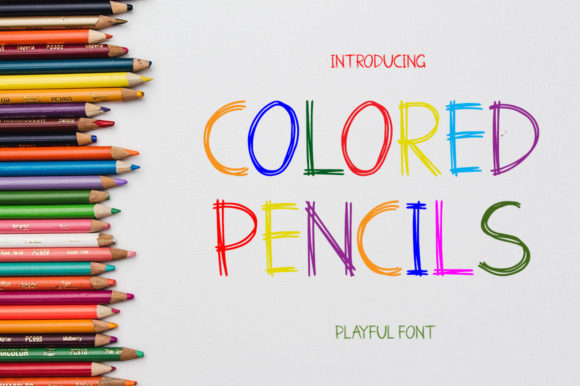
Introducing Colored Pencils Font, the ultimate choice for adding a burst of vibrant colors to your designs! Created by the talented PurMoon, this font is a must-have for anyone seeking the best font for poster text.
With its playful and eye-catching appearance, Colored Pencils Font is the perfect match for school-themed projects and beyond. Imagine the joy and excitement it will bring to your invitations, party decorations, educational materials, and more. Let your creativity run wild as you create captivating designs that truly stand out.
What sets Colored Pencils Font apart is its unique color font feature. As an Opentype-SVG font, it offers a level of visual richness and depth that traditional fonts simply can't match. Watch as your text comes to life with vibrant hues and realistic pencil textures, adding an extra layer of authenticity to your designs.
Whether you're a professional graphic designer or a DIY enthusiast, this font is here to elevate your designs to new heights. Let the whimsy and charm of Colored Pencils Font captivate your audience and leave a lasting impression.